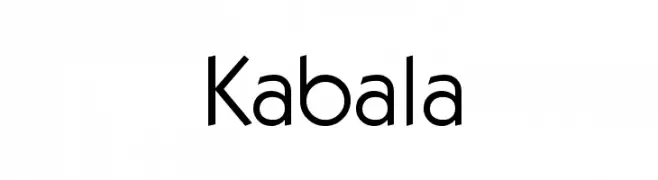
( Google Web Fonts )
A bold, italicized sans-serif font with a modern and dynamic look.
( Fonts by Abdulmakesfonts )
A bold, geometric font with a strong, blocky appearance.
A bold, impactful font with thick, uniform strokes for strong visual presence.
( Fonts by Sora Sagano - www.dotcolon.net )
A classic serif font with elegant lines and medium contrast.
( Fonts by Khurasan )
A bold, playful font with rounded, hand-drawn characters.
A modern, light sans-serif font with clean lines and excellent readability.
A playful, handwritten cursive font with smooth, flowing curves.